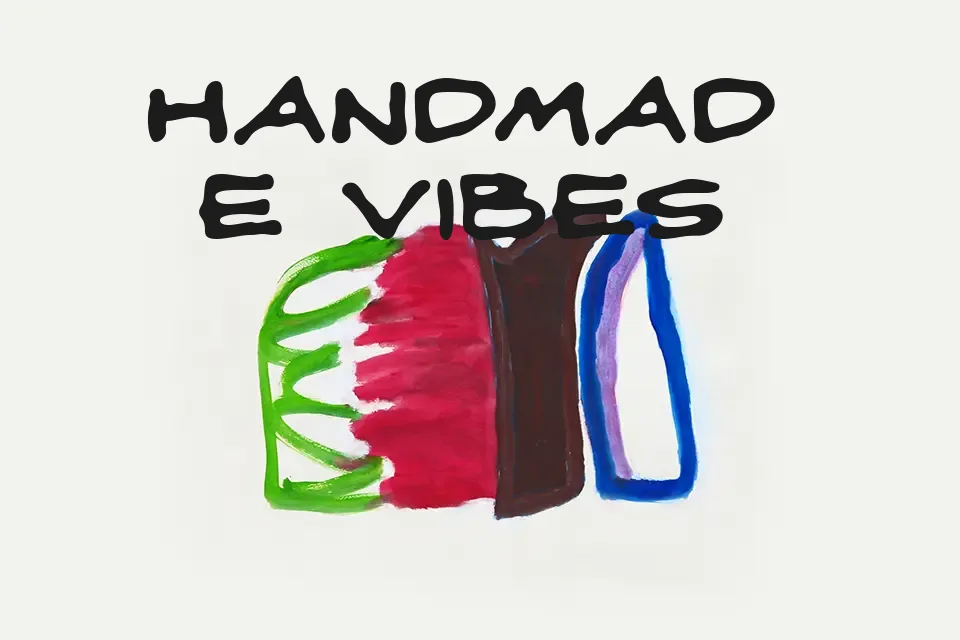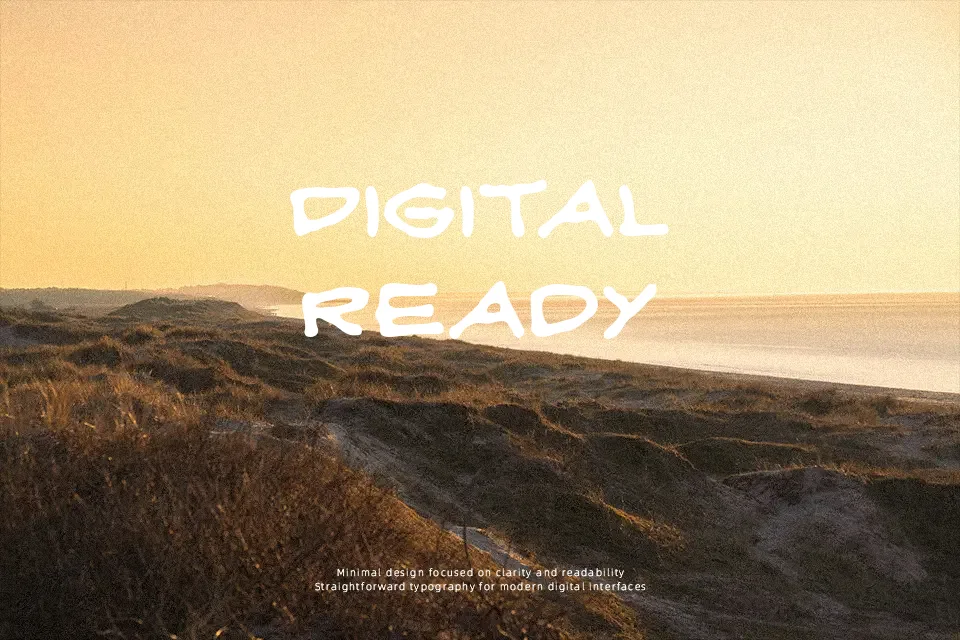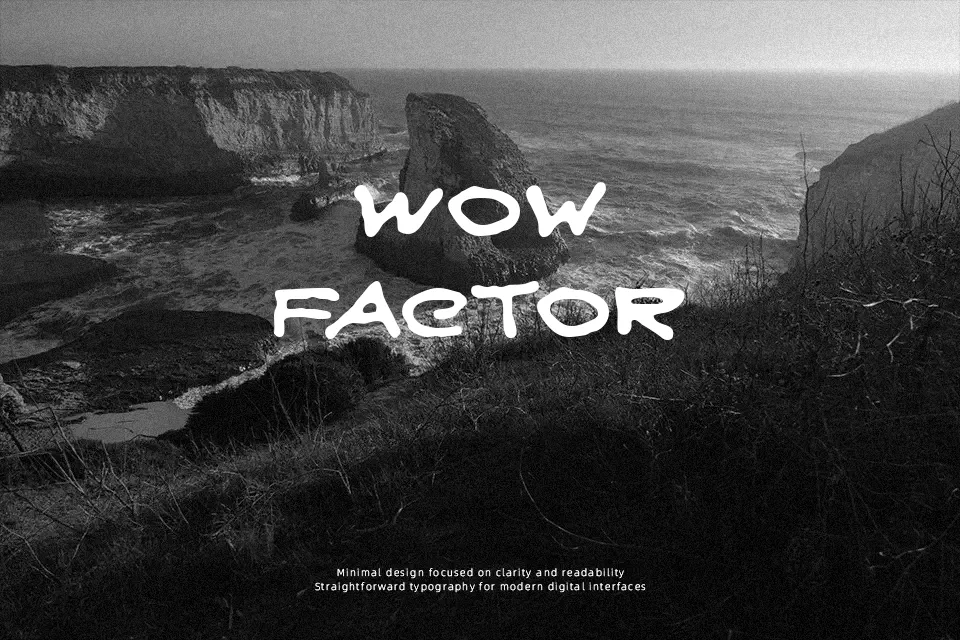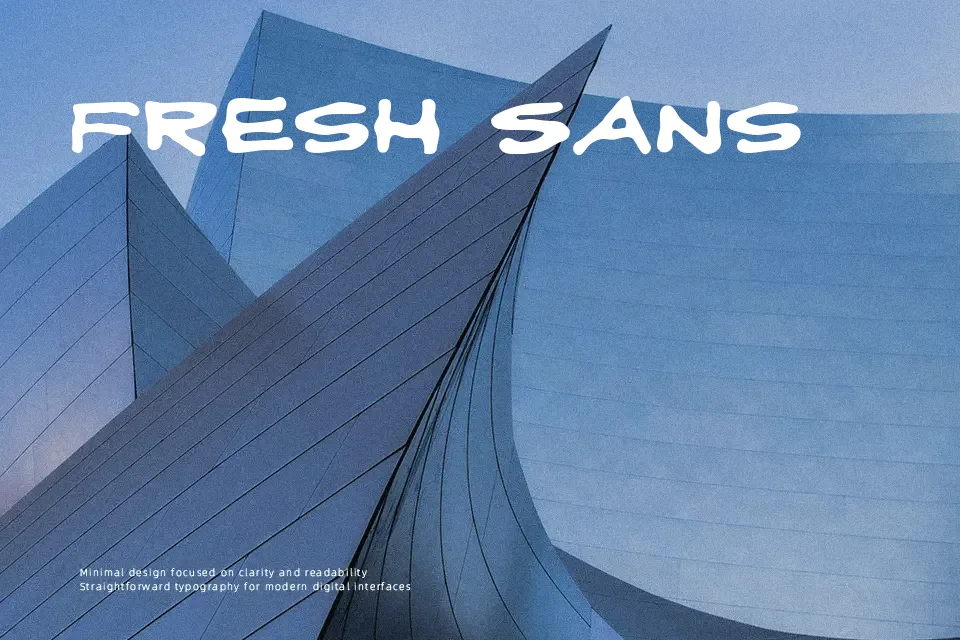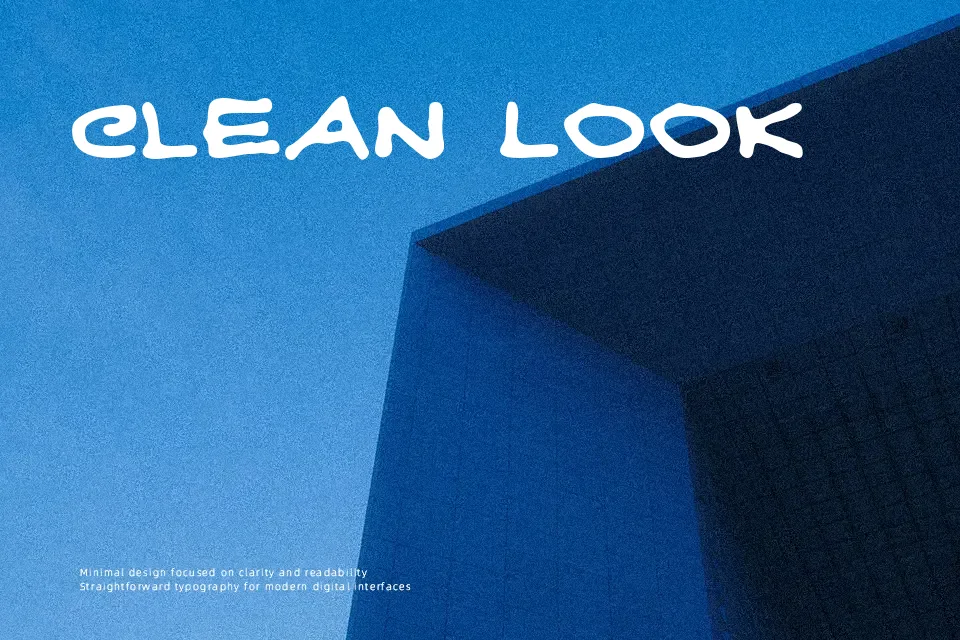
Nikad Robom Font
Nikad Robom presents heavy, irregular strokes and comic-inspired shapes that give each letter a hand-rendered, energetic feel, with spacing that pulls characters close together and proportions that lean toward compact, attention-grabbing forms. The design reads clearly enough in larger display settings, where its rough contours and dense structure contribute to a gritty, expressive texture, but the same traits can reduce comfort in smaller captions or long lines of text. Thick, uneven outlines help the letterforms stand out in posters, album covers, or logo-style wordmarks, while the decorative complexity makes the typeface less suited to continuous reading or precise interface labels.
music festival posters,album artwork titles,gritty logo wordmarks,comic-style headlines
long paragraph text,small UI labels,formal corporate documents,detailed data tables
Perfect for gaming, headline, and logo, with a bold and comic style.